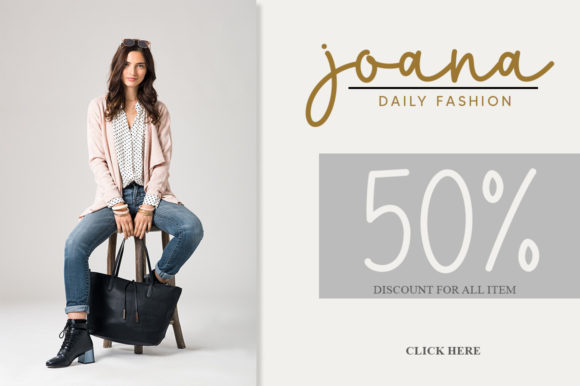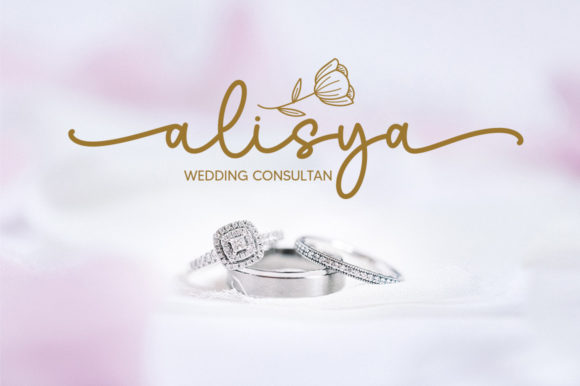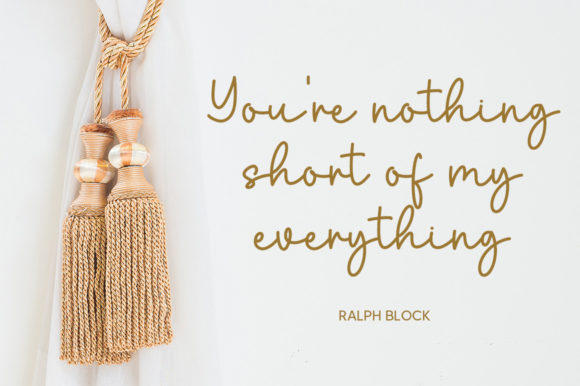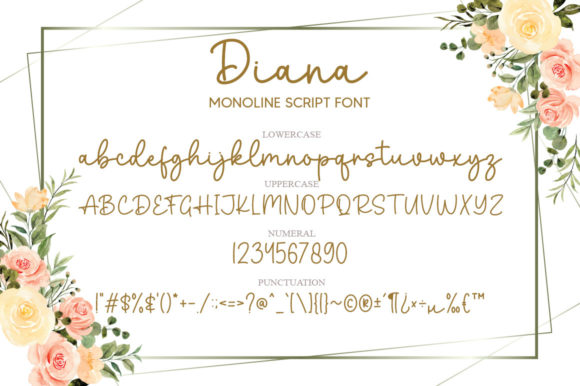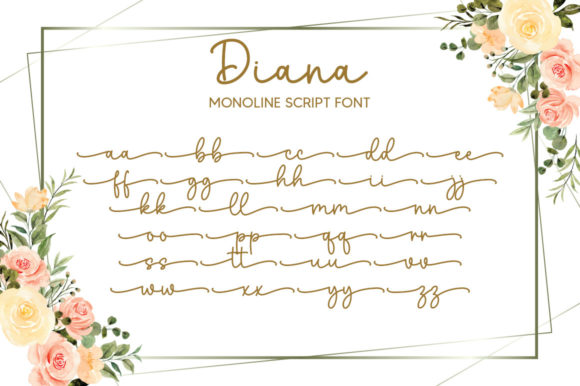
A Brush with Romance: Unveiling the Diana Font
As a designer, there’s nothing quite like the thrill of creating something truly special for a loved one. Perhaps it’s a custom wedding invitation or a heartfelt birthday card – whatever the project, the goal is always the same: to convey love, joy, and warmth in a way that feels uniquely personal. For those moments when you want to add a touch of elegance and whimsy to your design, you’re in luck: enter the Diana Font, a charming handwritten font that’s sure to capture the essence of romance.
This delightful font is perfect for adding a playful, dainty feel to your designs, making it ideal for wedding invitations, cards, and other projects that require a touch of sophistication. With its PUA encoding, accessing the font’s many glyphs and swashes is a breeze – giving you the freedom to get creative and add that extra special something to your work. Whether you’re a seasoned designer or just starting out, the Diana Font is a valuable addition to any toolkit, offering endless possibilities for expressing your artistic vision.
Diana Font Key Features
- Unique Characteristic: A modern script font with elegant and sophisticated feel, suitable for formal and creative applications
Diana Font Review
Overall, I was quite excited to dive into the Diana font. As a designer, I appreciate unique and elegant fonts that can elevate the visual appeal of a project. ✨ The first thing that caught my attention was the beautiful, handwritten feel of the font. It’s perfect for creating a sense of warmth and sophistication.
- The elegant and refined feel of the font is unmatched. ✨
- Perfect for creating a sense of luxury and sophistication.
- The font is highly versatile and can be used for a wide range of projects.
- ⚠️ Limited character set, which may cause issues for users who need to type in languages that require more characters.
- The font can be quite thin, which may not be suitable for large-scale text or headings.
- ⚠️ May not be the best choice for projects that require a lot of emphasis or bold text.
Overall, I think the Diana font is a great choice for designers who want to add a touch of elegance and sophistication to their projects. While it has some limitations, I believe it’s a solid addition to any font collection.
Tips for Getting the Most Out of Diana Font
Use Diana Font for headings and titles to add a touch of elegance to your designs.
Pair Diana Font with other fonts to create a visually appealing typography.
Diana Font is suitable for various designs, including:
Editorial and magazine layouts
Business cards and brochures
Alternatives to Diana Font
Playfair Display is an elegant, high-end serif font suitable for titles, headings, and luxury branding. It features intricate details and swashes, making it perfect for creating a sophisticated and refined look.
Compared to Diana Font, Playfair Display has a more luxurious feel and is better suited for high-end designs. While Diana Font is a versatile font, Playfair Display excels in creating a sense of opulence and sophistication.
Pacifico is a beautiful, modern script font ideal for creating a friendly and approachable tone. It features a relaxed, handwritten feel that works well for logos, branding, and body text.
Compared to Diana Font, Pacifico has a more casual and laid-back feel. While Diana Font is a elegant font, Pacifico is better suited for designs that require a friendly and approachable tone.
Great Vibes is a beautiful, elegant script font that works well for titles, headings, and body text. It features a flowing, handwritten feel that adds a touch of sophistication and elegance to any design.
Compared to Diana Font, Great Vibes has a more fluid and dynamic feel. While Diana Font is a versatile font, Great Vibes excels in creating a sense of movement and energy.
Carolyna Pro is a modern, elegant script font that works well for titles, headings, and body text. It features a flowing, handwritten feel that adds a touch of sophistication and elegance to any design.